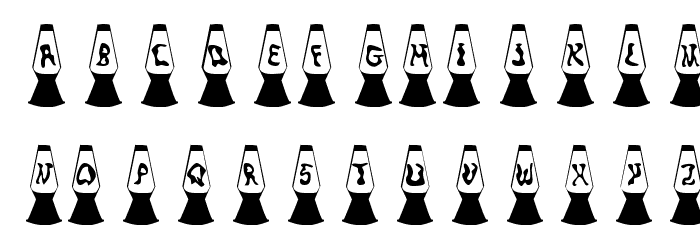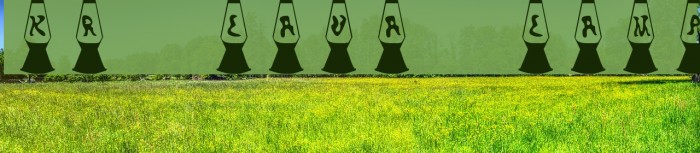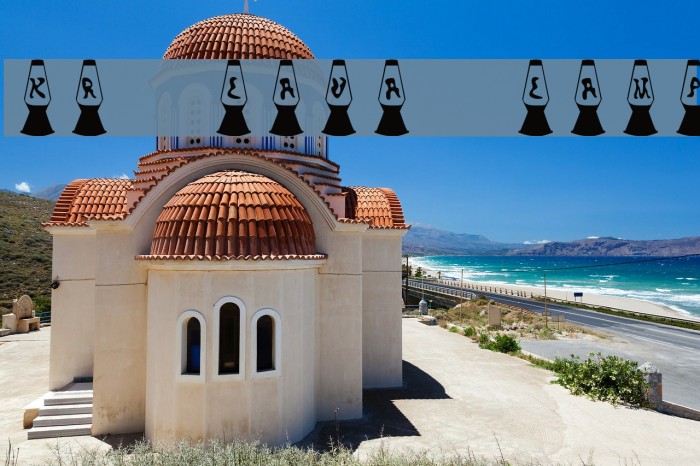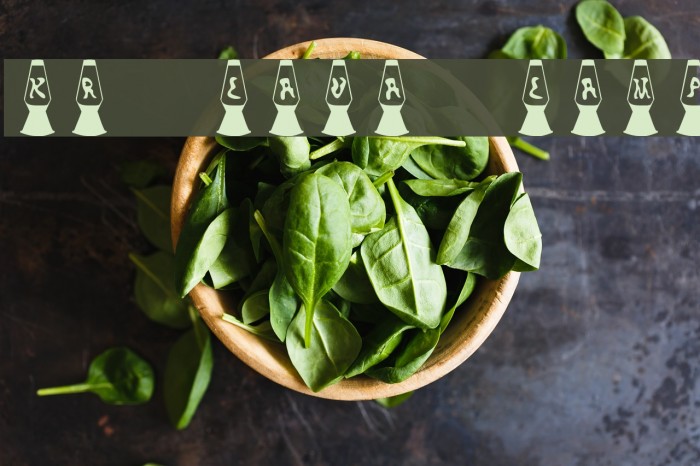
KR Lava Lamp Font
This font features a playful and unique design, where each character is encapsulated within the shape of a lava lamp. The letters are bold and stylized, with a whimsical flair that captures the fluid motion of lava within the lamp. The characters are evenly spaced and maintain a consistent size, ensuring readability despite their decorative nature. The font includes both uppercase and lowercase letters, numbers, and a selection of special characters, all adhering to the lava lamp theme. The overall aesthetic is fun and retro, reminiscent of the 1960s and 70s, making it ideal for projects that aim to evoke a sense of nostalgia or playfulness.
A playful, retro font with characters inside lava lamp shapes.
- Proposed Projects: Ideal for retro-themed posters, party invitations, children's book covers, and novelty product packaging.
- Overall Style: Retro, Playful